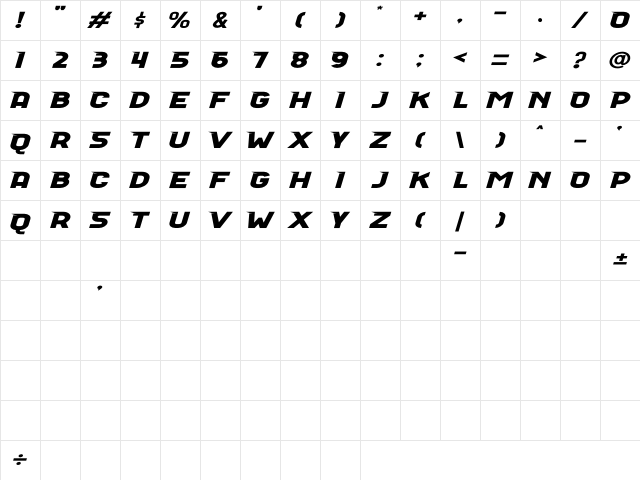
Complete Race Champion Regular glyph index. Displaying only characters natively supported by Race Champion Regular font.
Race Champion is a composed and adaptable typeface that performs quietly and consistently across a wide range of design contexts.